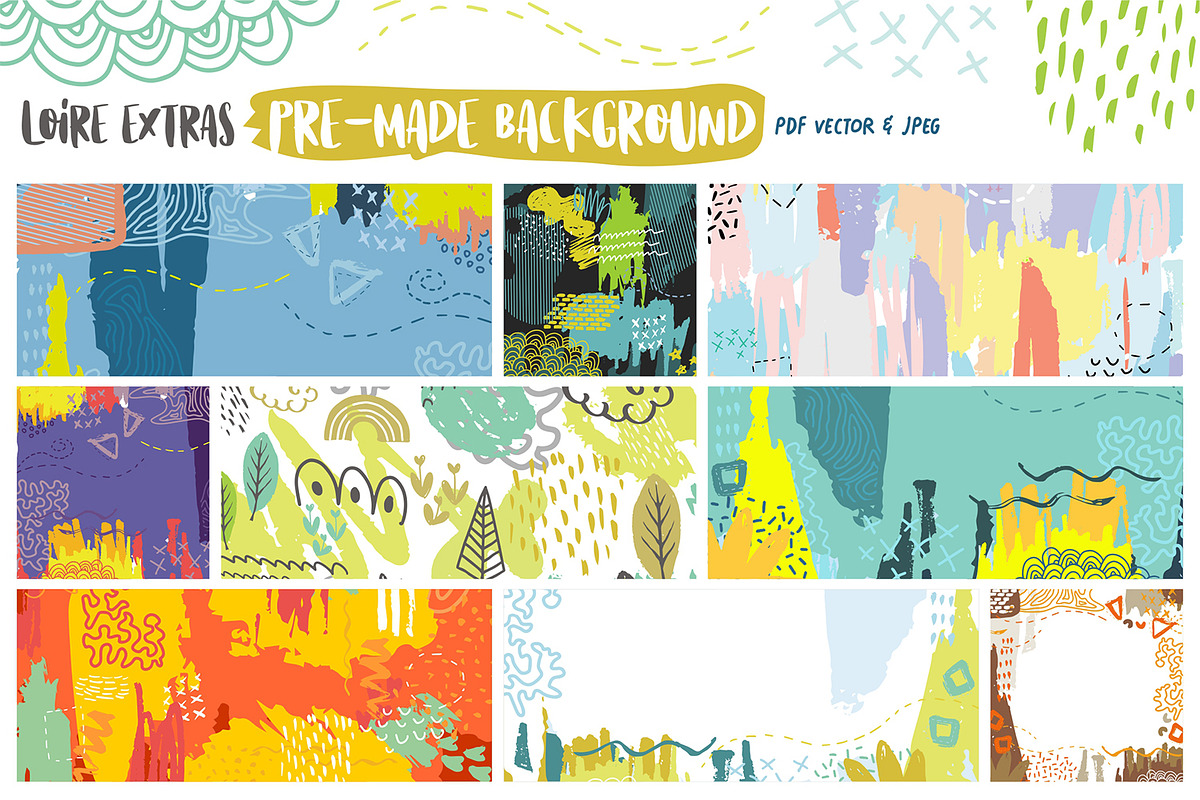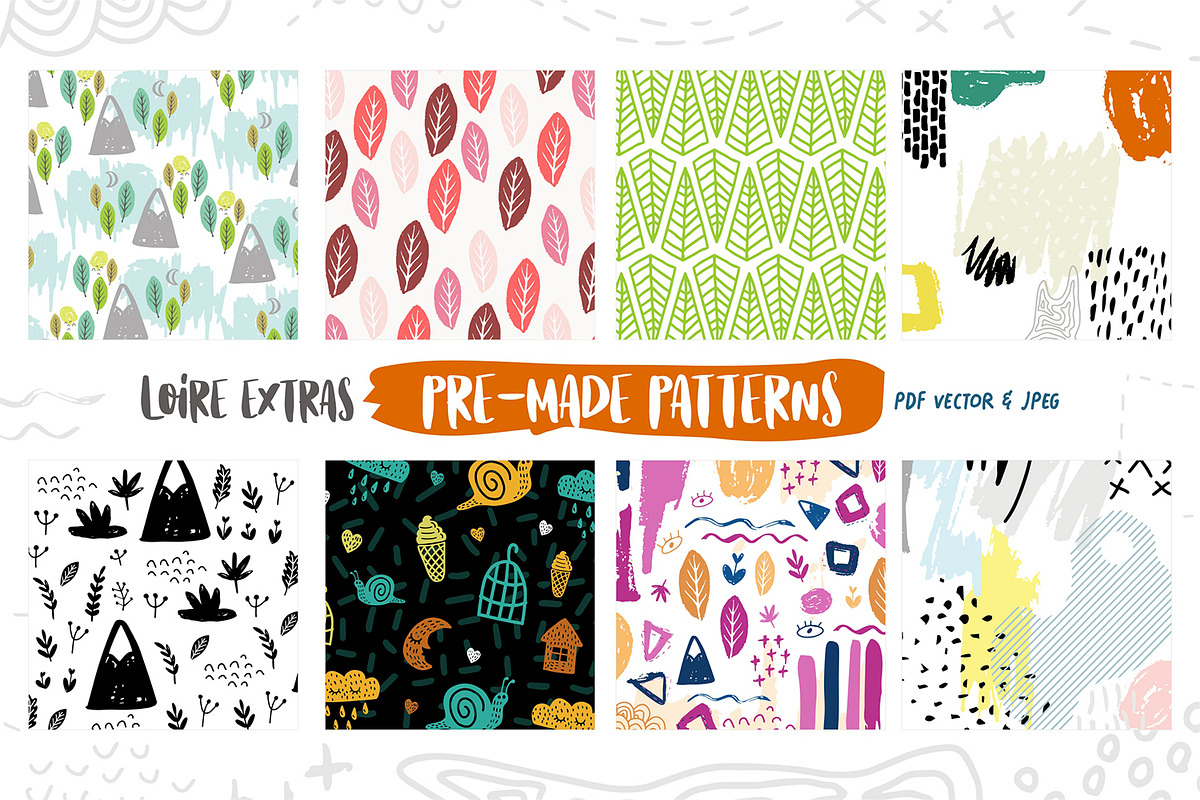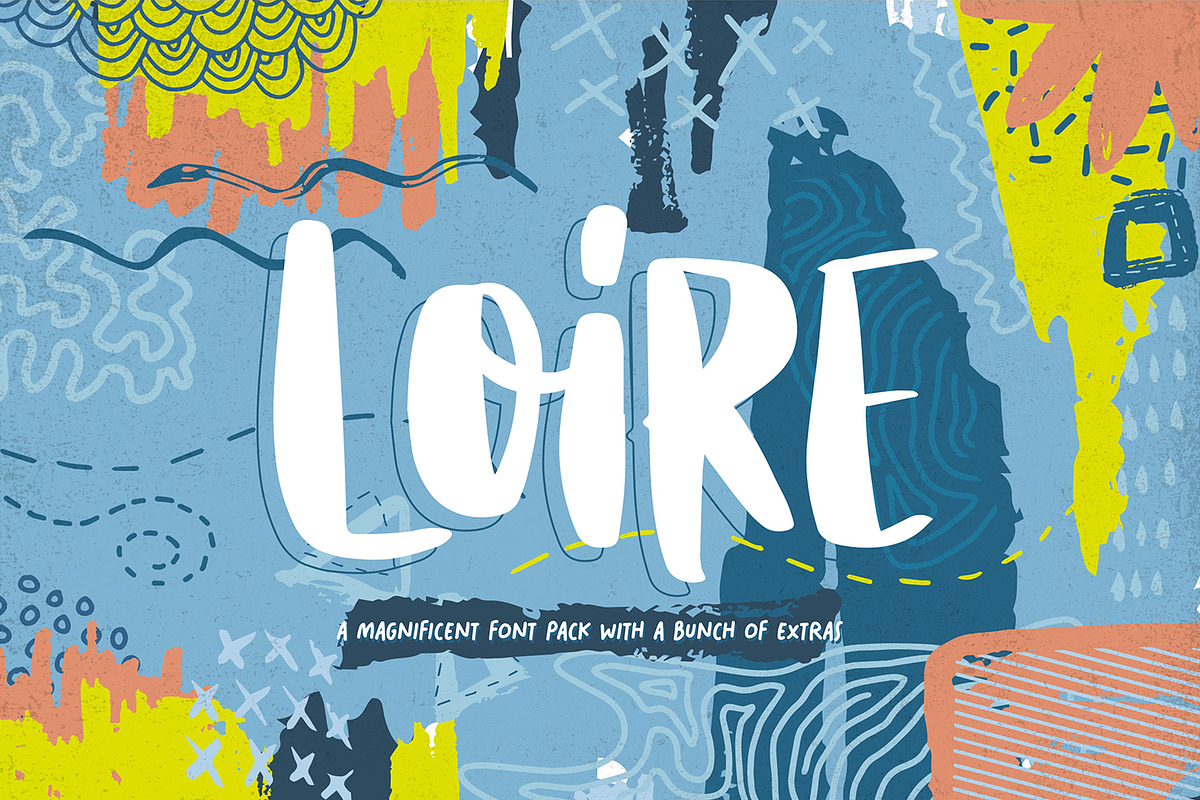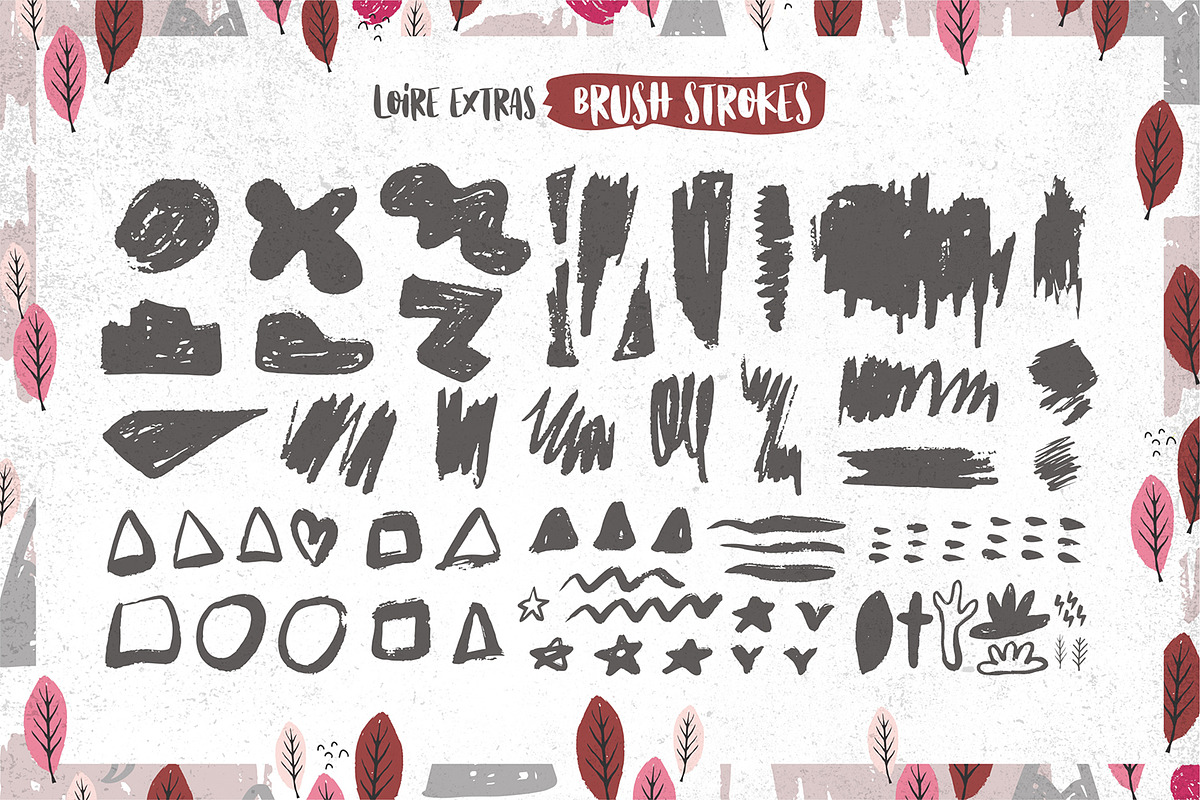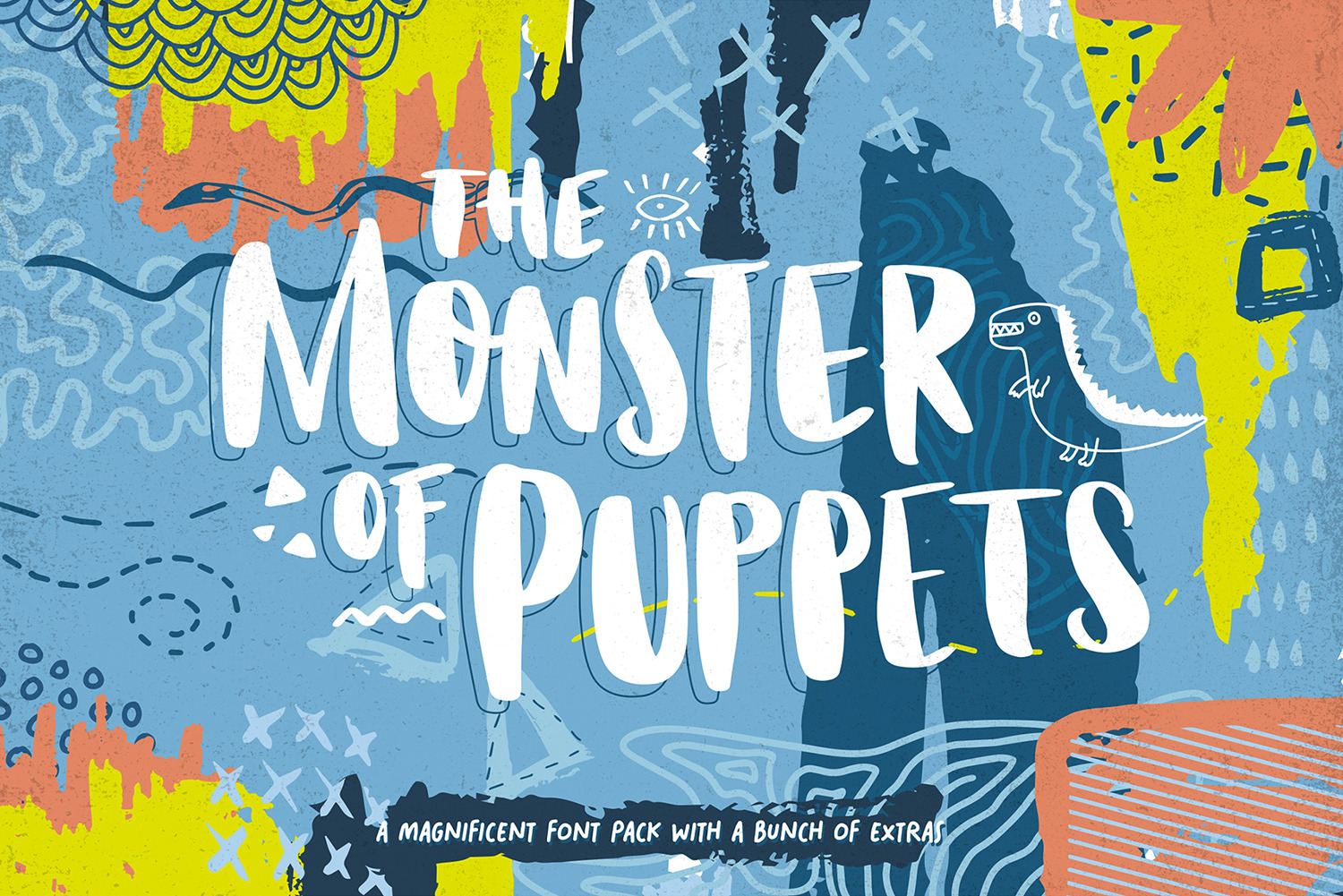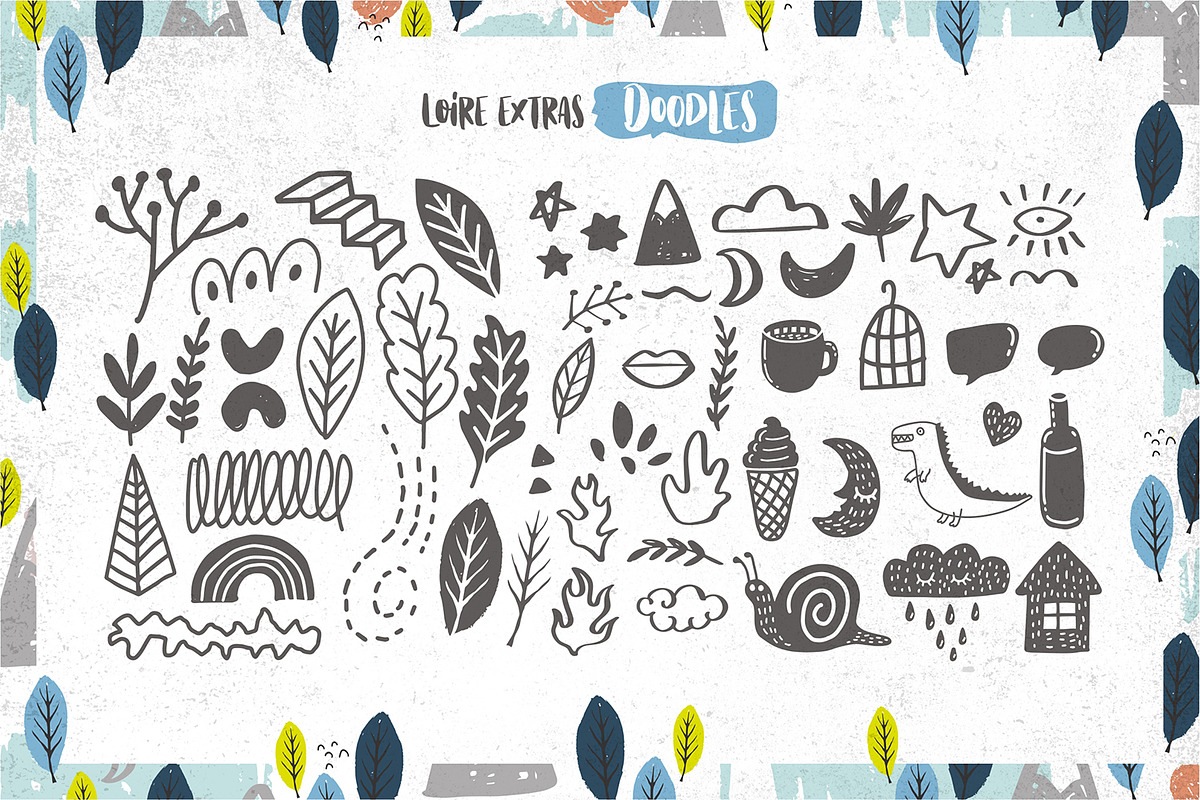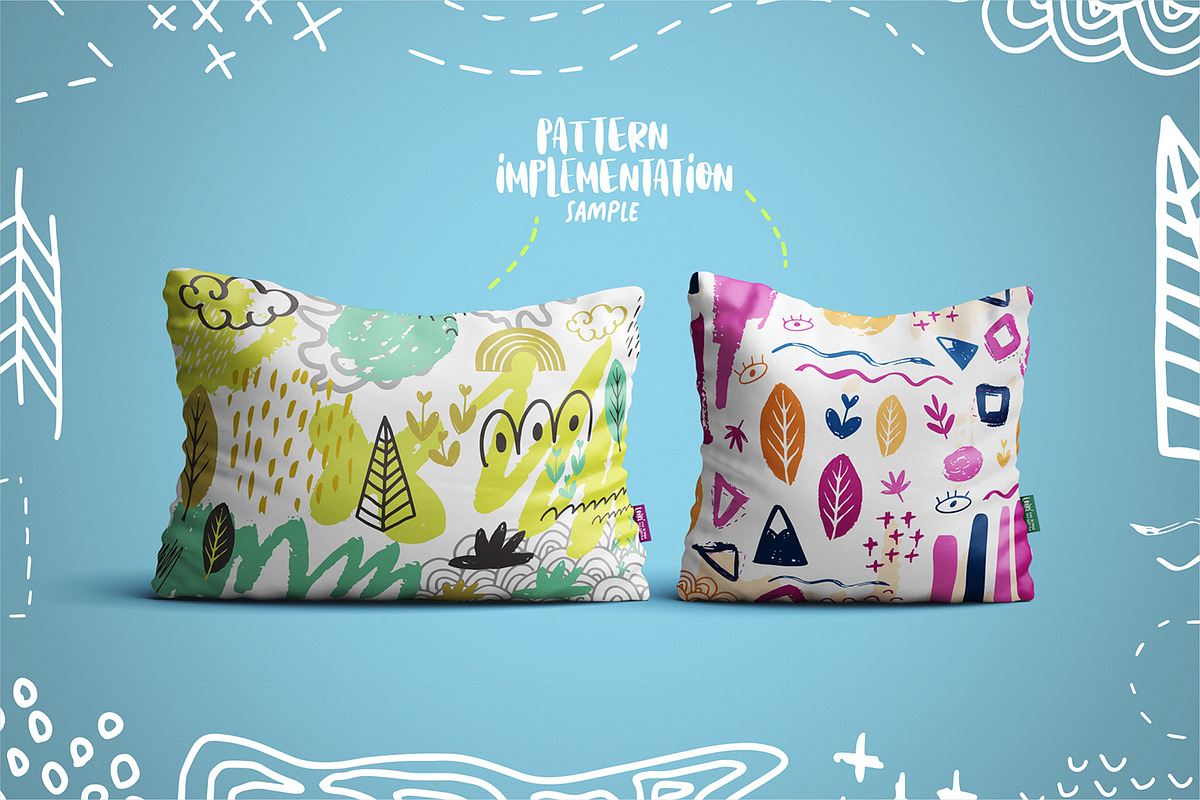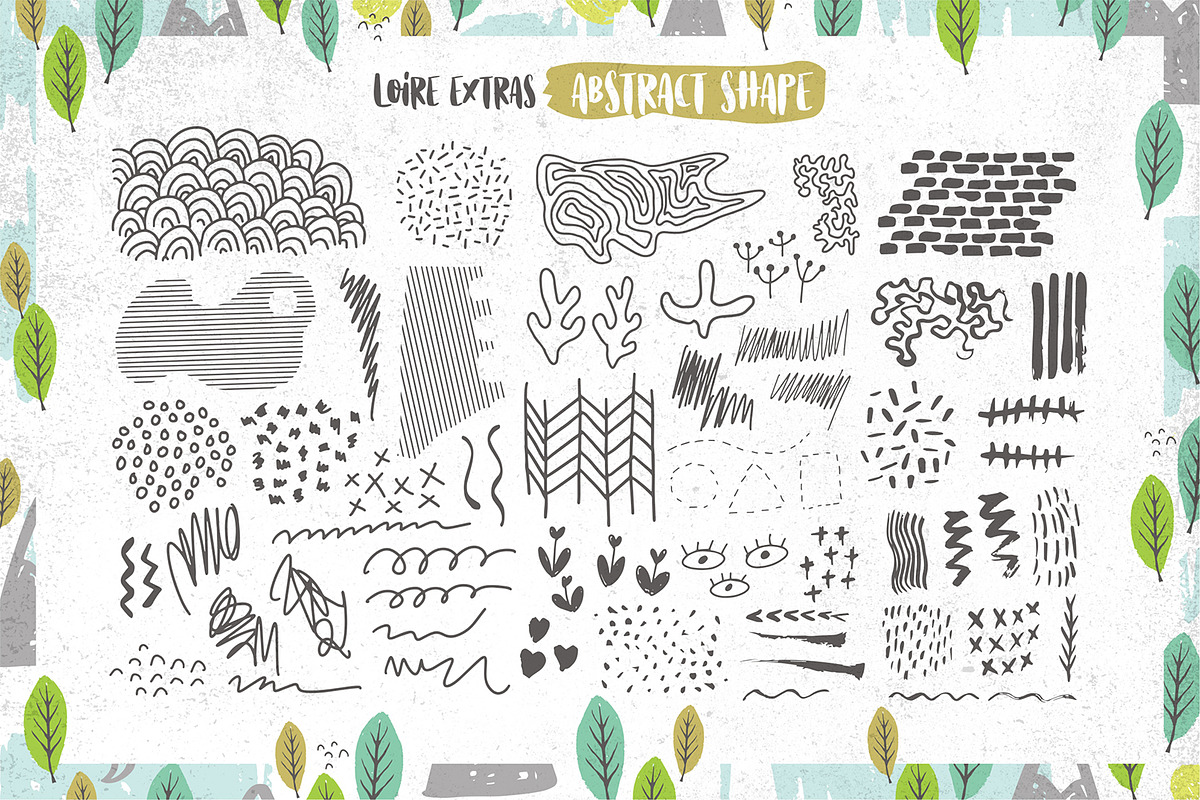
Loire Font Pack + Graphic Bundle
Loire Font Pack is 4 bold handdrawn font packed with a bunch of abstract shape, brush stroke, doodles and pre-made patterns and background. The characters come with irregular baseline that gives customizable options and natural look. Have unique shapes on each font which makes it so delightful to create beautiful typographic works.
Loire Font Pack includes a full set of capital letters, ( lowercase on this font is capital letters with slightly reduction on size ) multi-lingual support, currency figures, numerals, and punctuation.